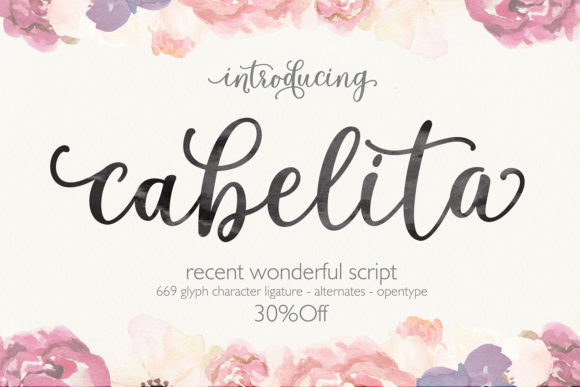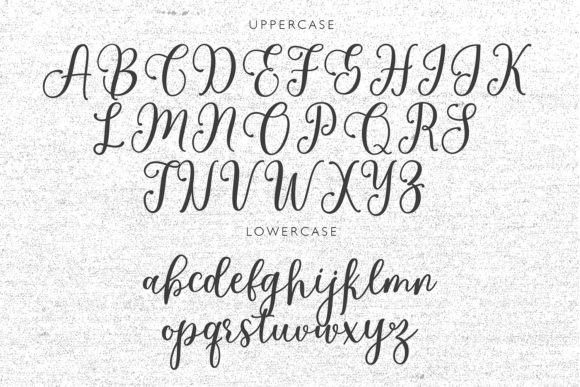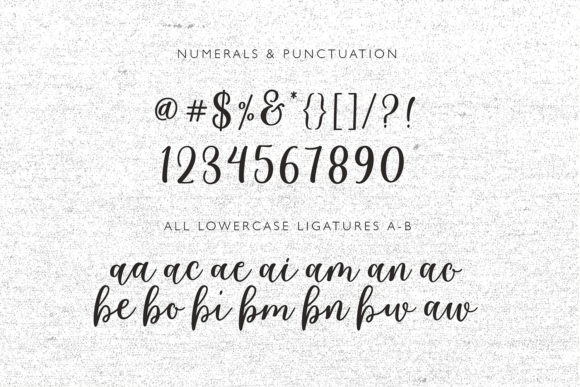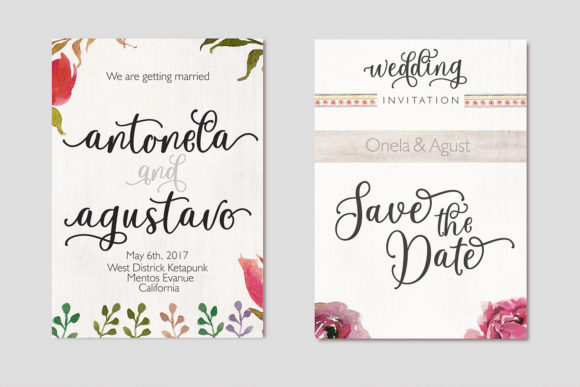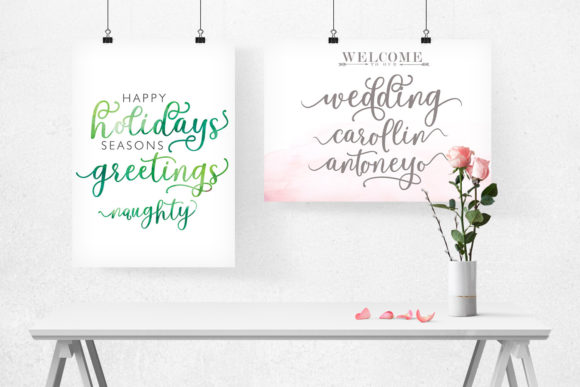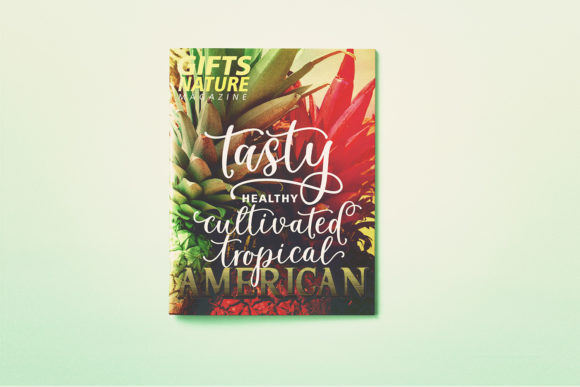
About Cabelita Script Font
Cabelita is a script font with a unique character. It looks trendy, natural, and gentle, and it will highlight all the beautiful aspects of your creative projects and ideas! This font advocates for purposes such as wedding invitations, parties, graduation, birthday, gathering, greeting cards, prints, banners, blogs, clothing, quotes, and more.